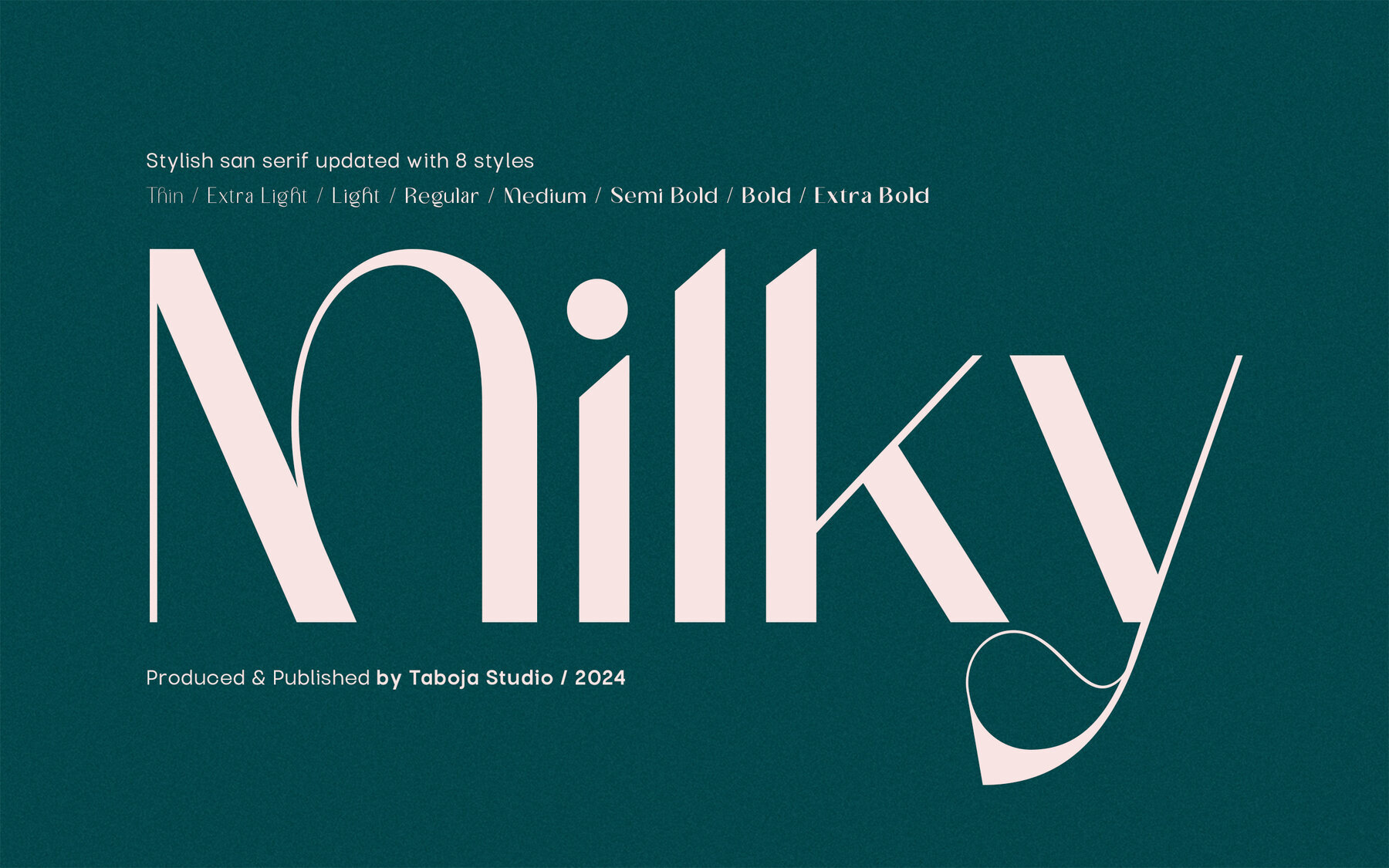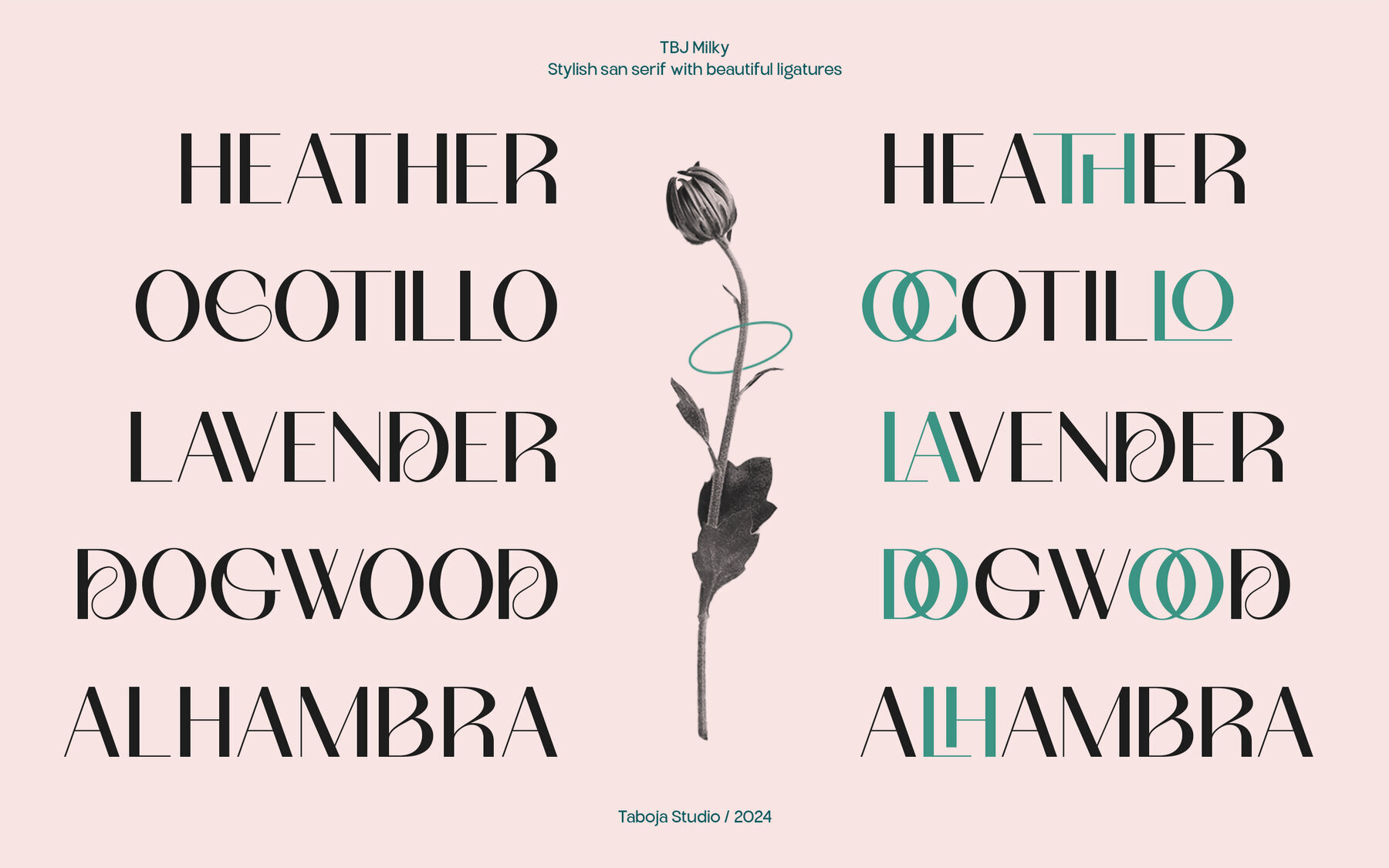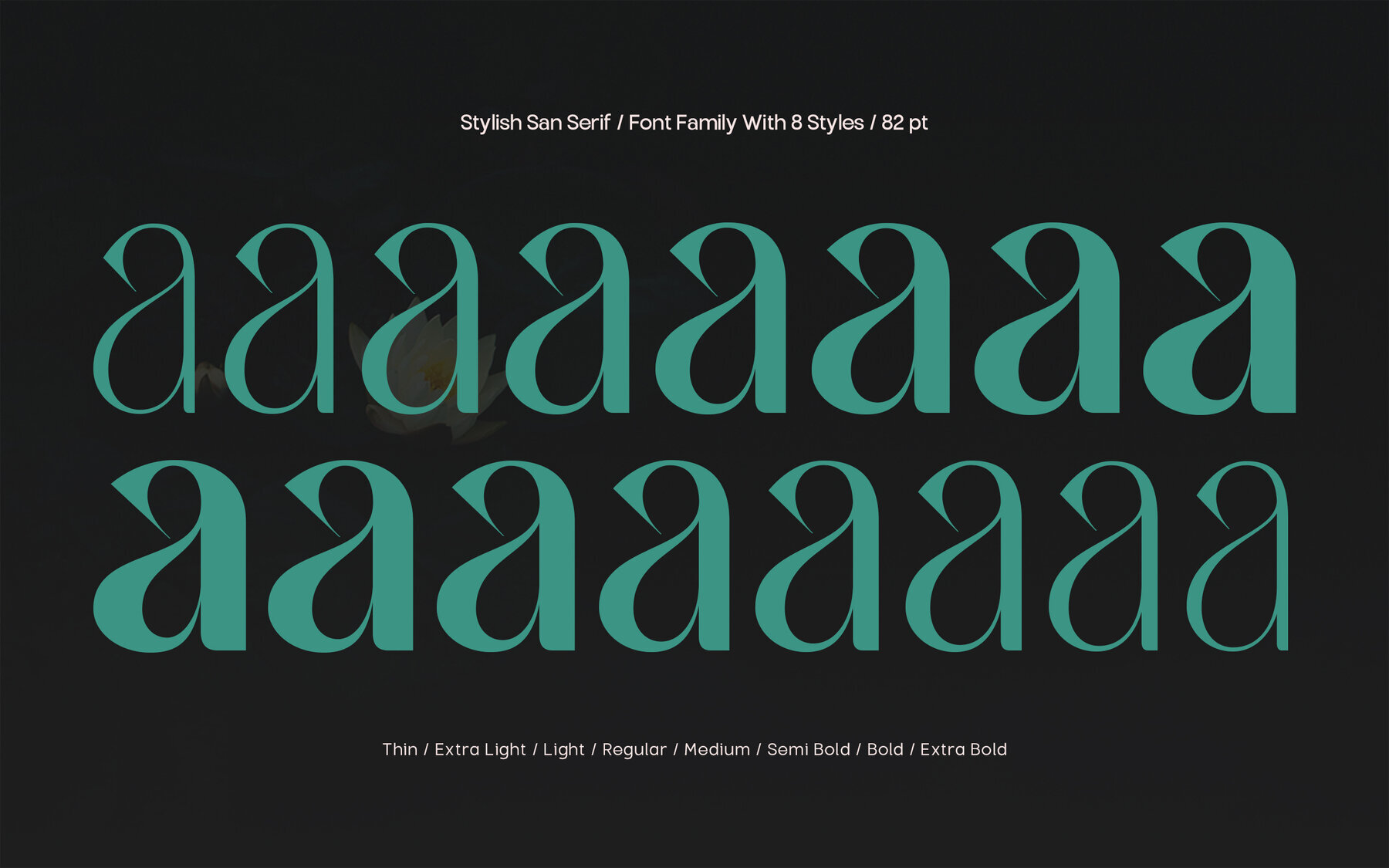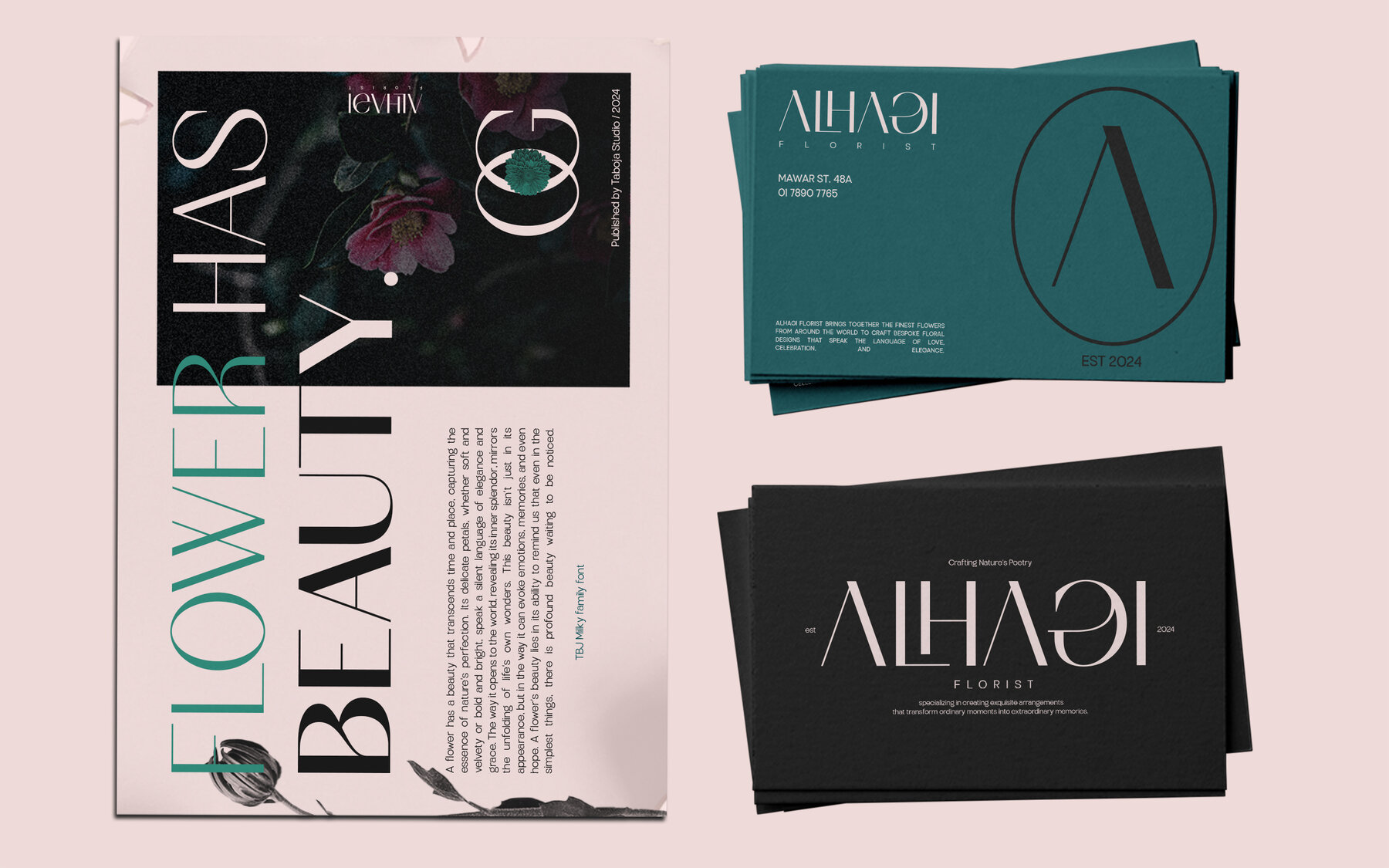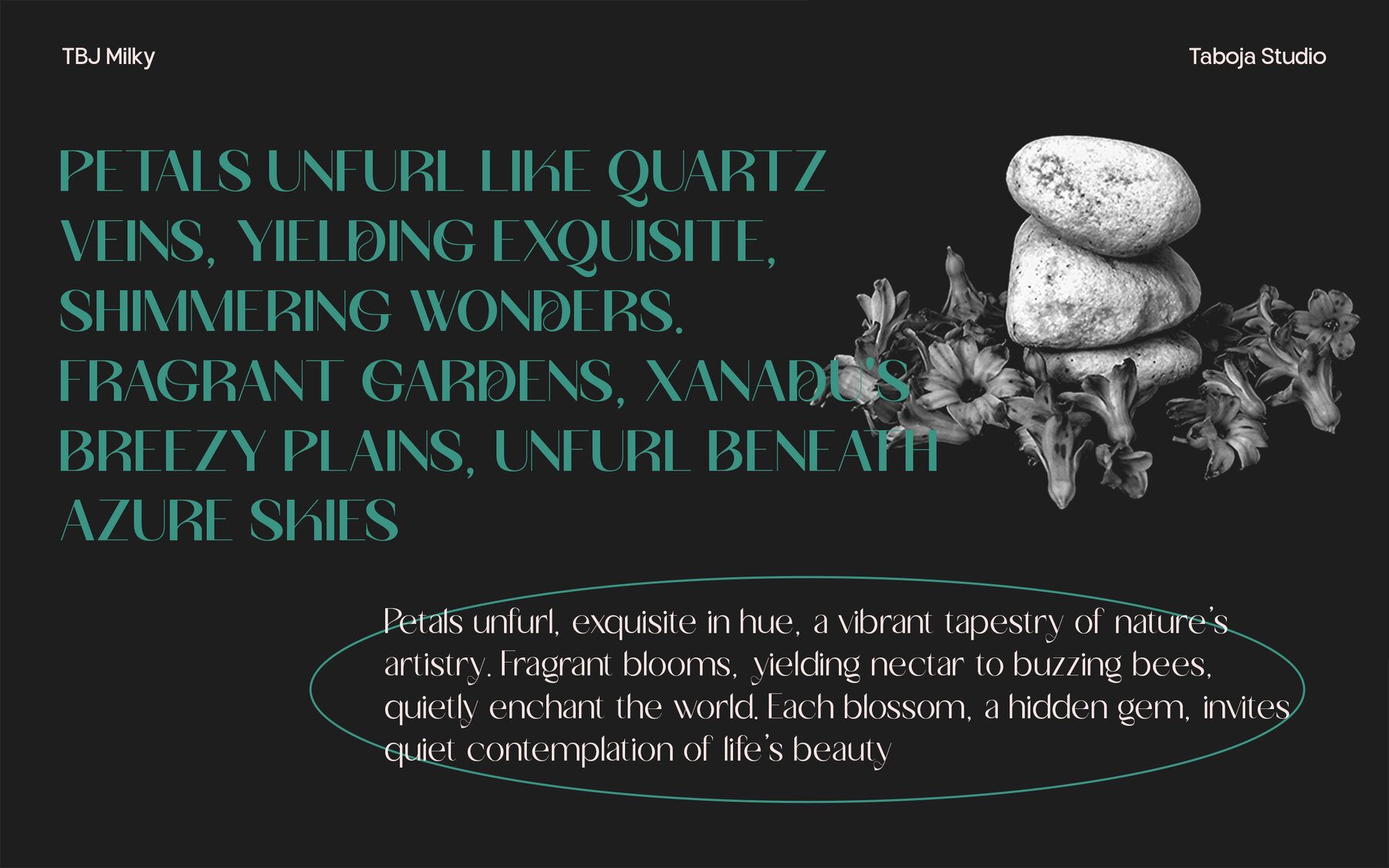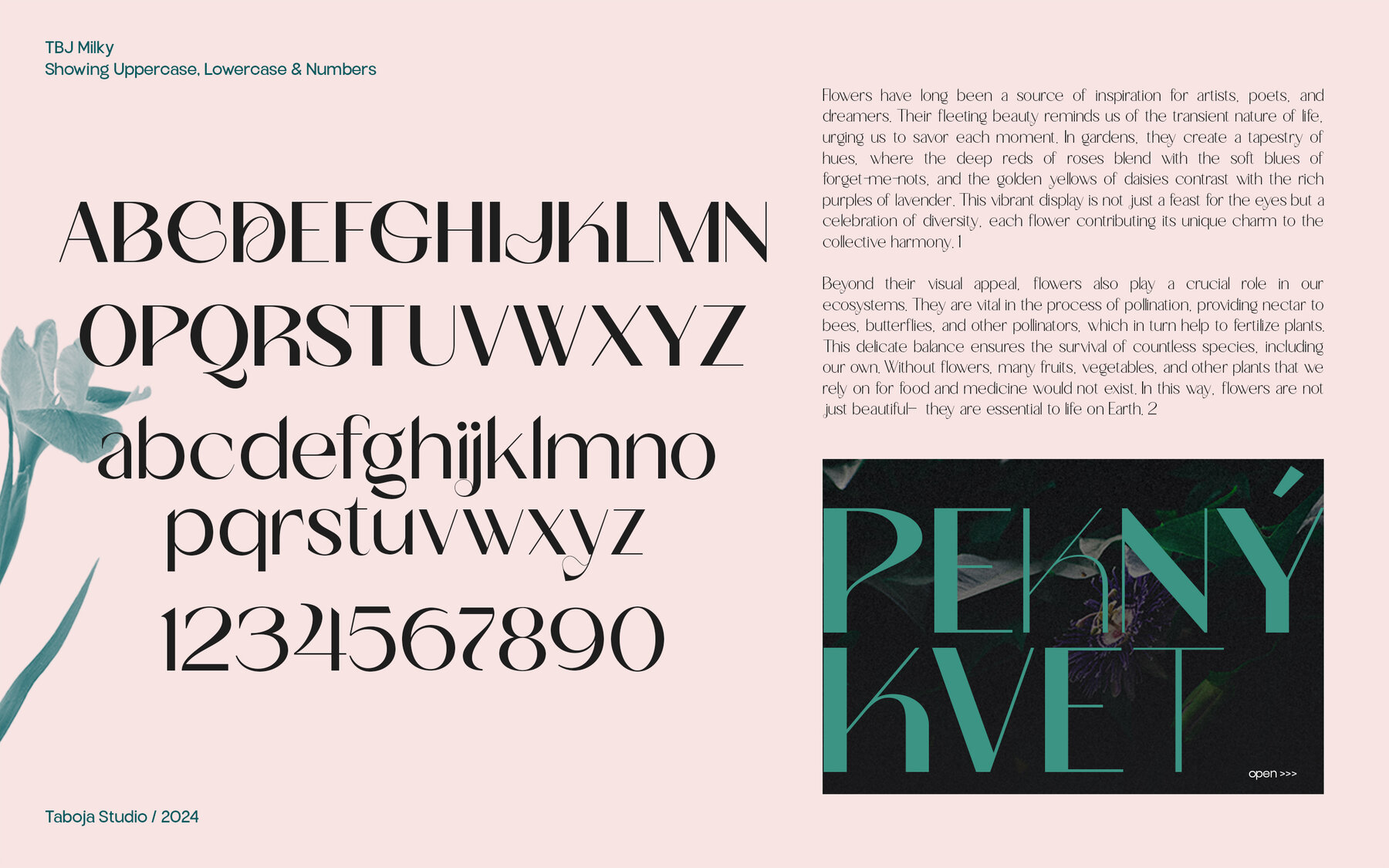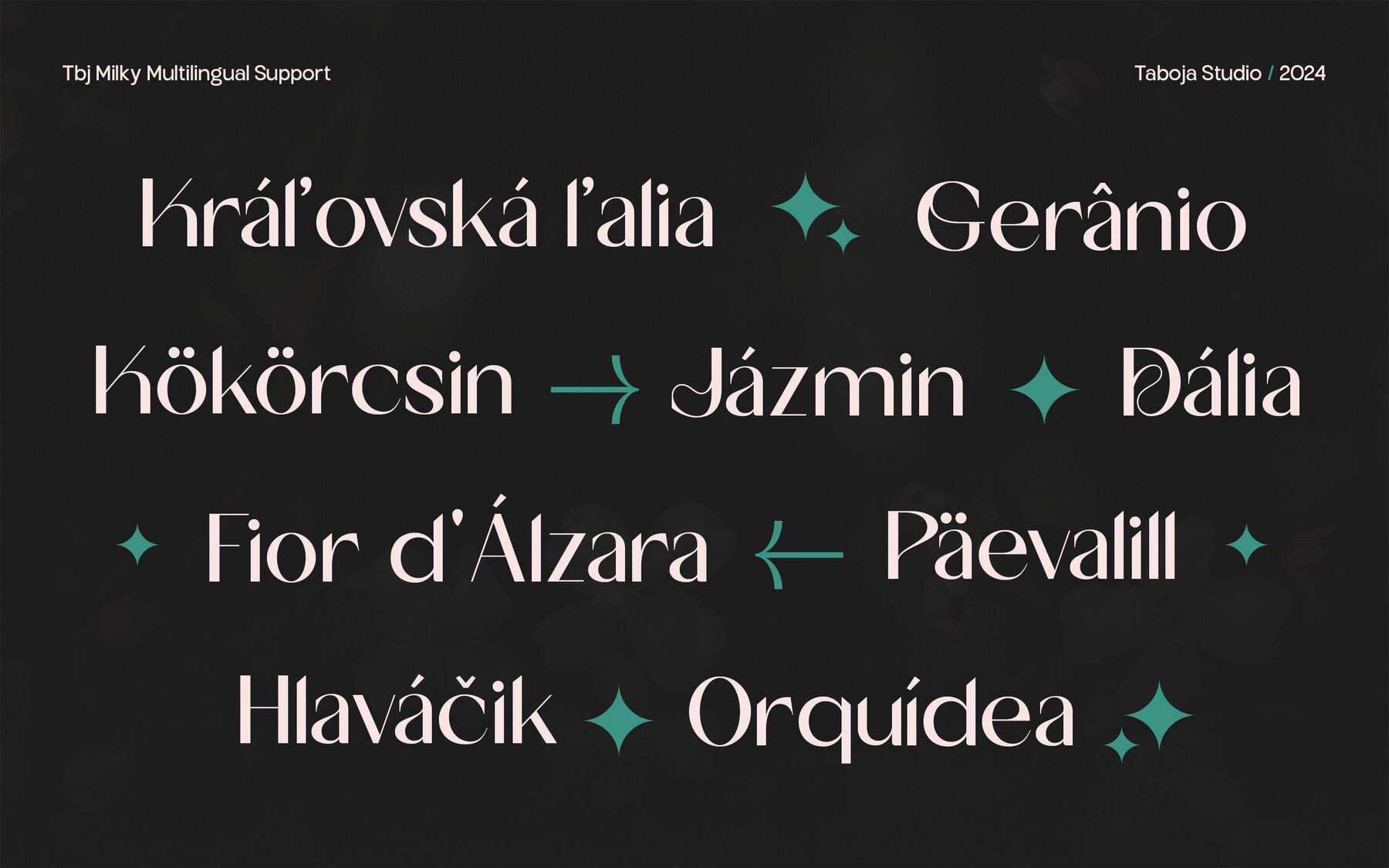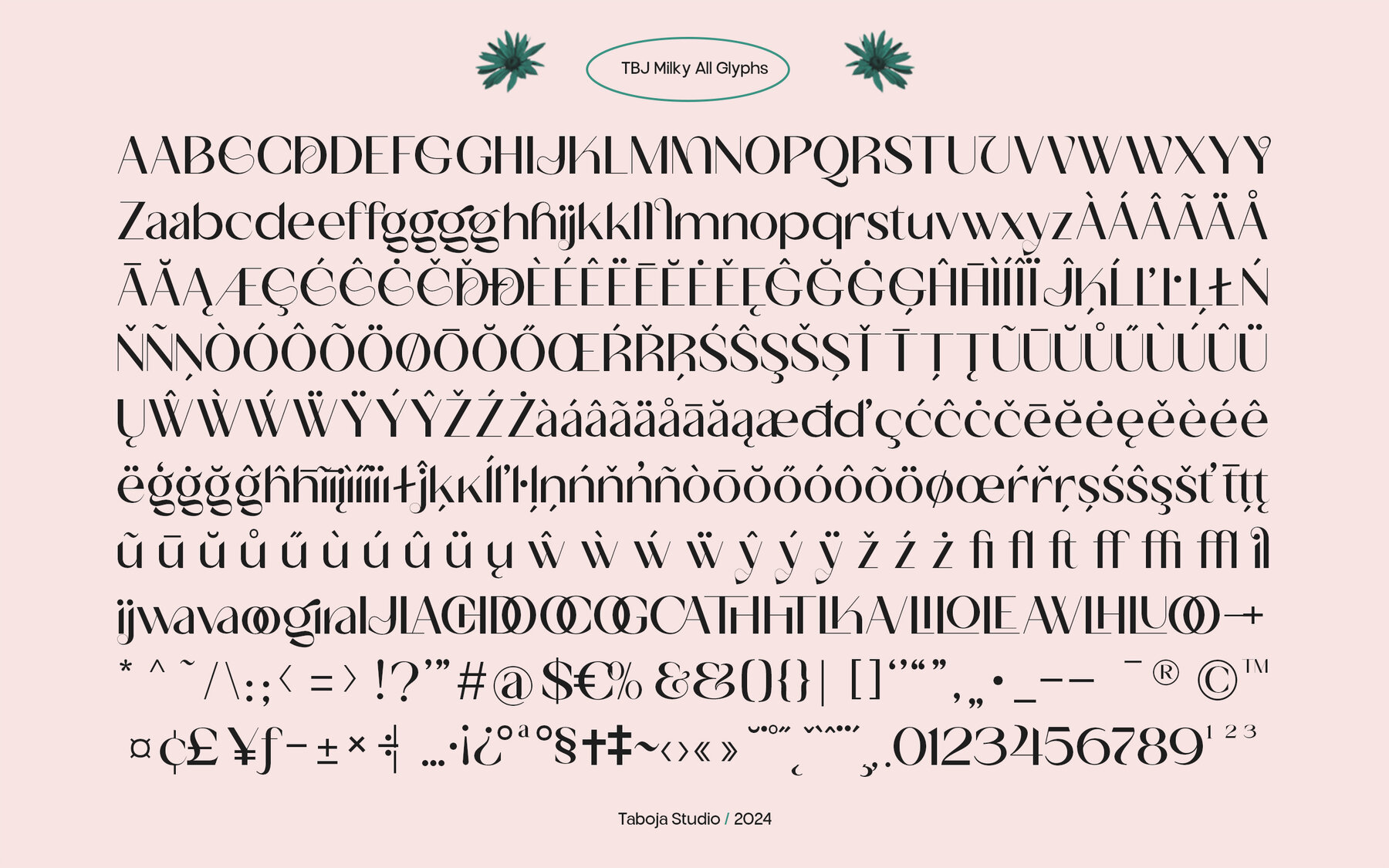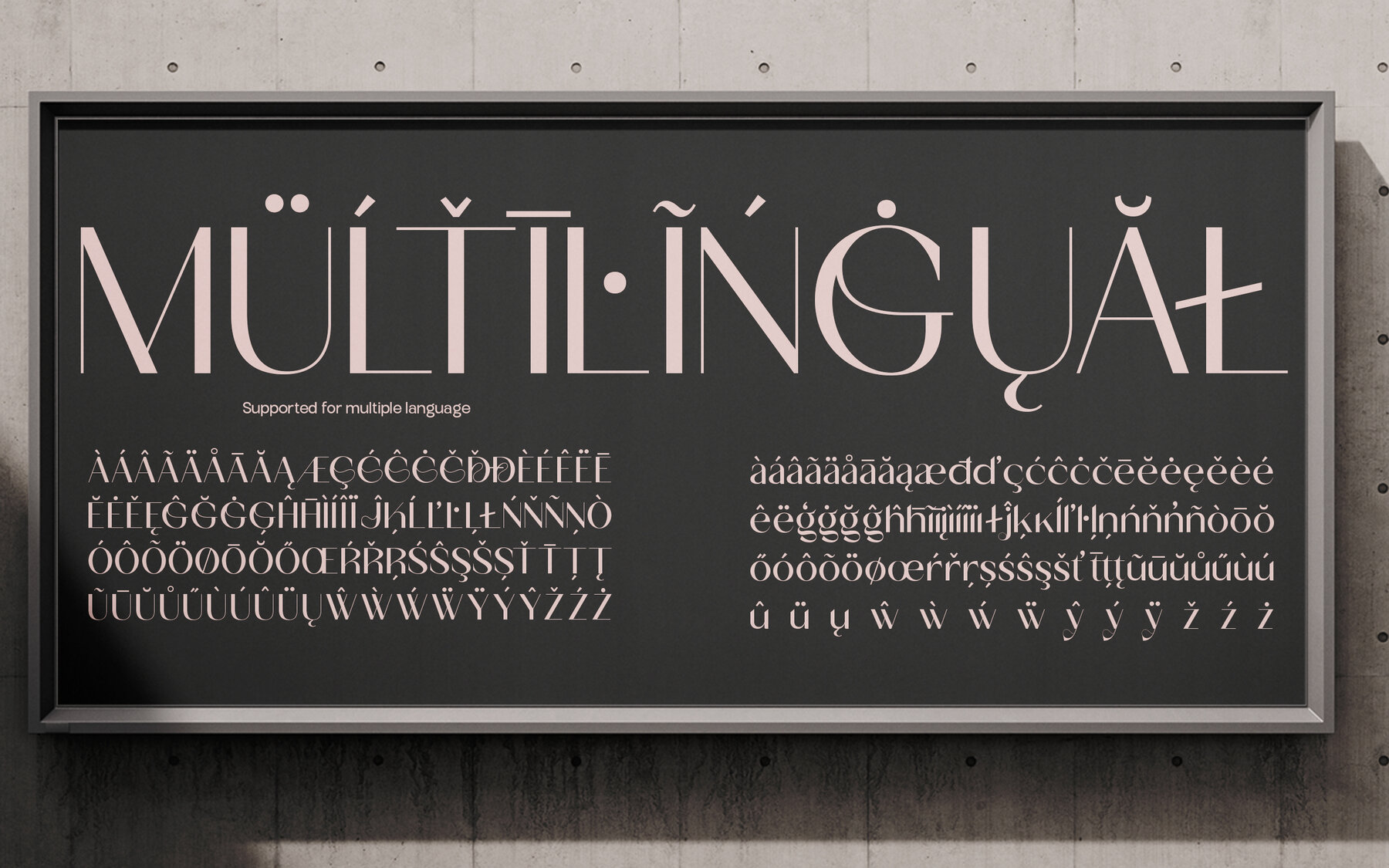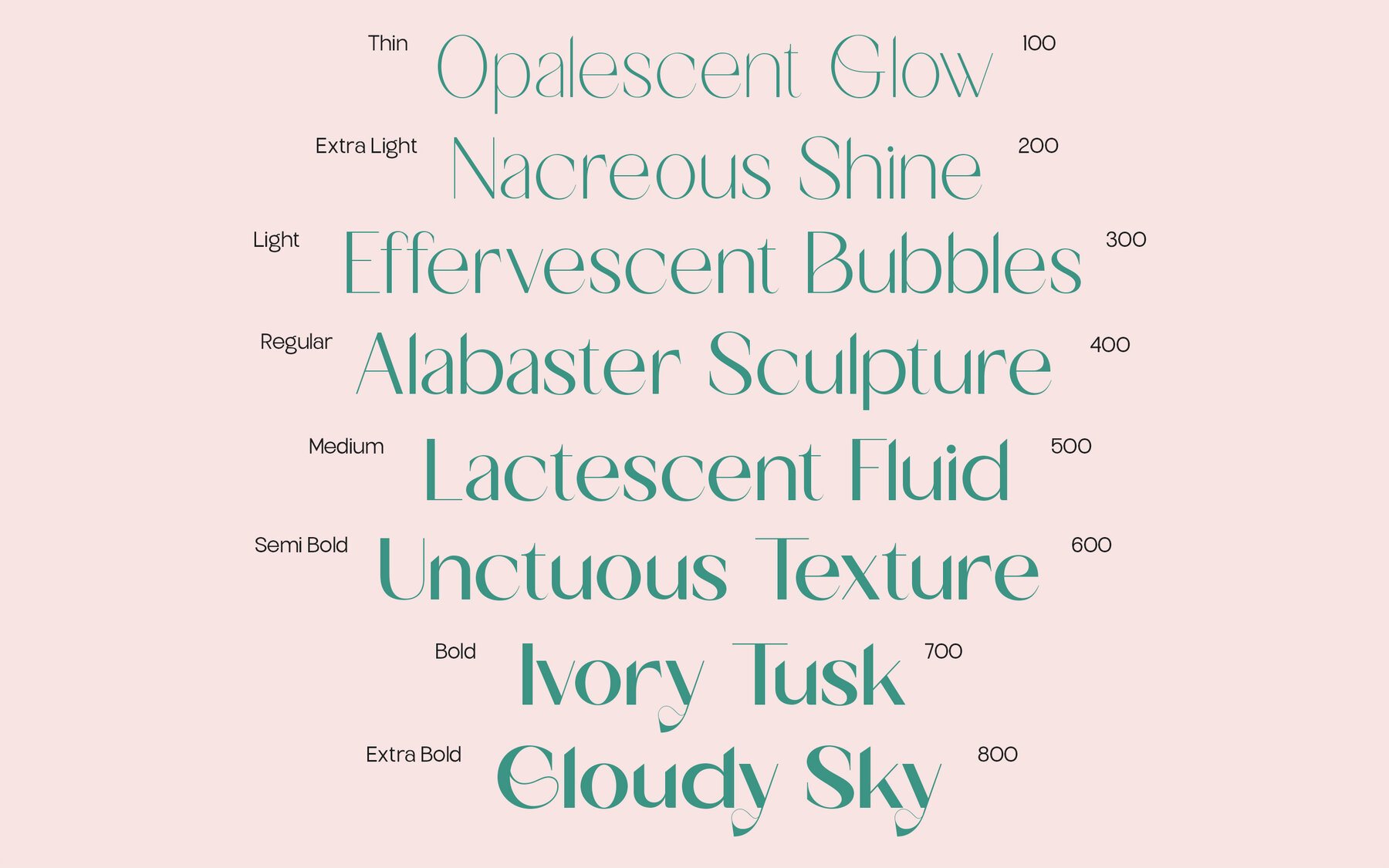
TBJ Milky Font
Introducing the updated Milky Typeface Display Font, now featuring 8 versatile weights. Maintaining its signature contrast of bold and thin strokes, this refined version delivers a modern touch, ensuring flexibility in your design endeavors. Crafted to retain the font's elegance and balance, it offers a perfect mixture of strength and sophistication. The Milky Typeface's sleek lines and contemporary flair make it an excellent choice for branding, headlines, and impactful visual displays.
Designed for versatility, the enhanced Milky Typeface adapts effortlessly to various creative projects. It includes uppercase and lowercase letters, additional ligatures and alternatives, numerals, punctuation, and accented characters. With multilingual support and Unicode PUA encoding, it offers the resources necessary for a global design reach. This typeface is a reliable asset for designers seeking both bold impact and refined details in their work.